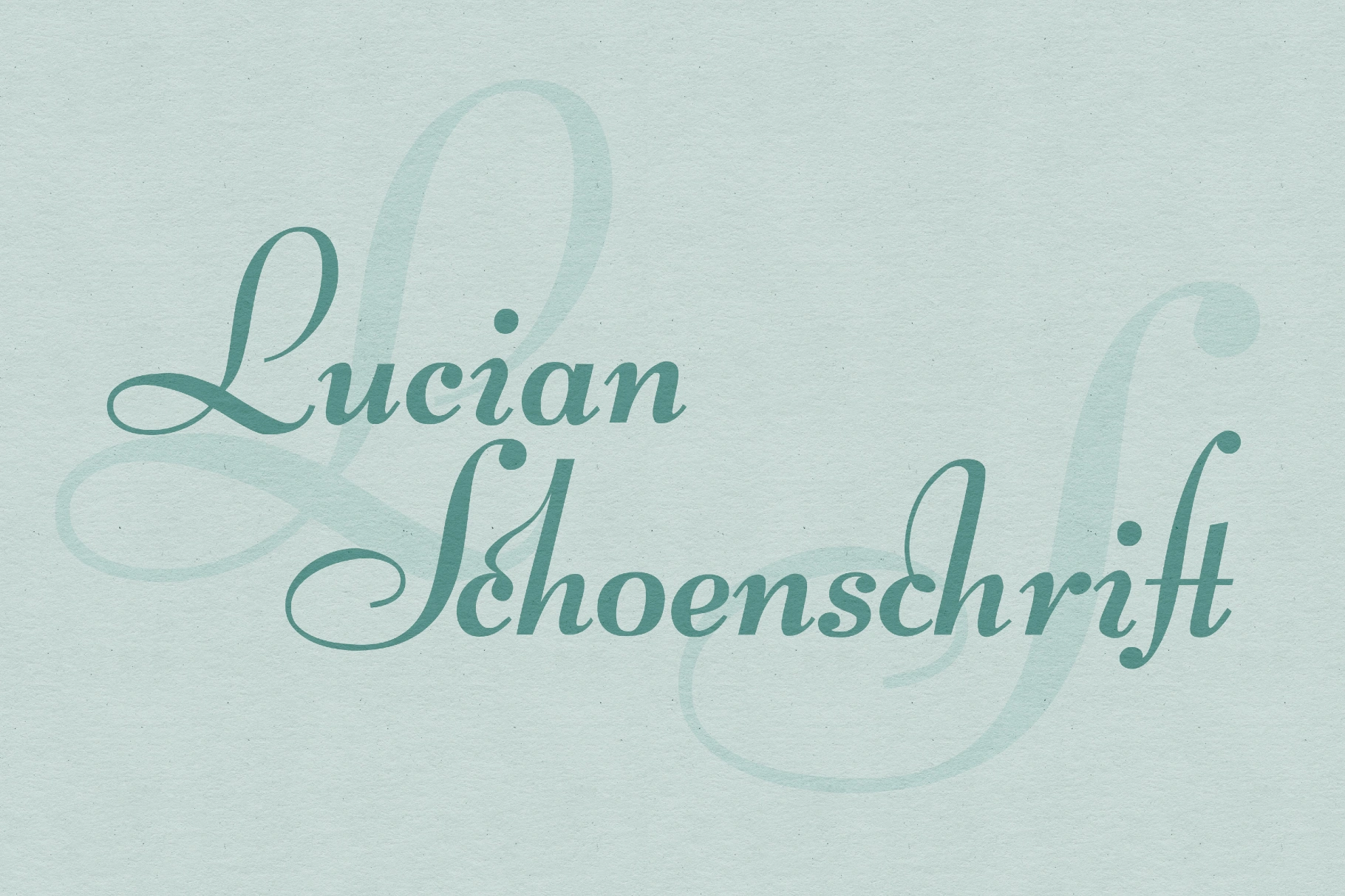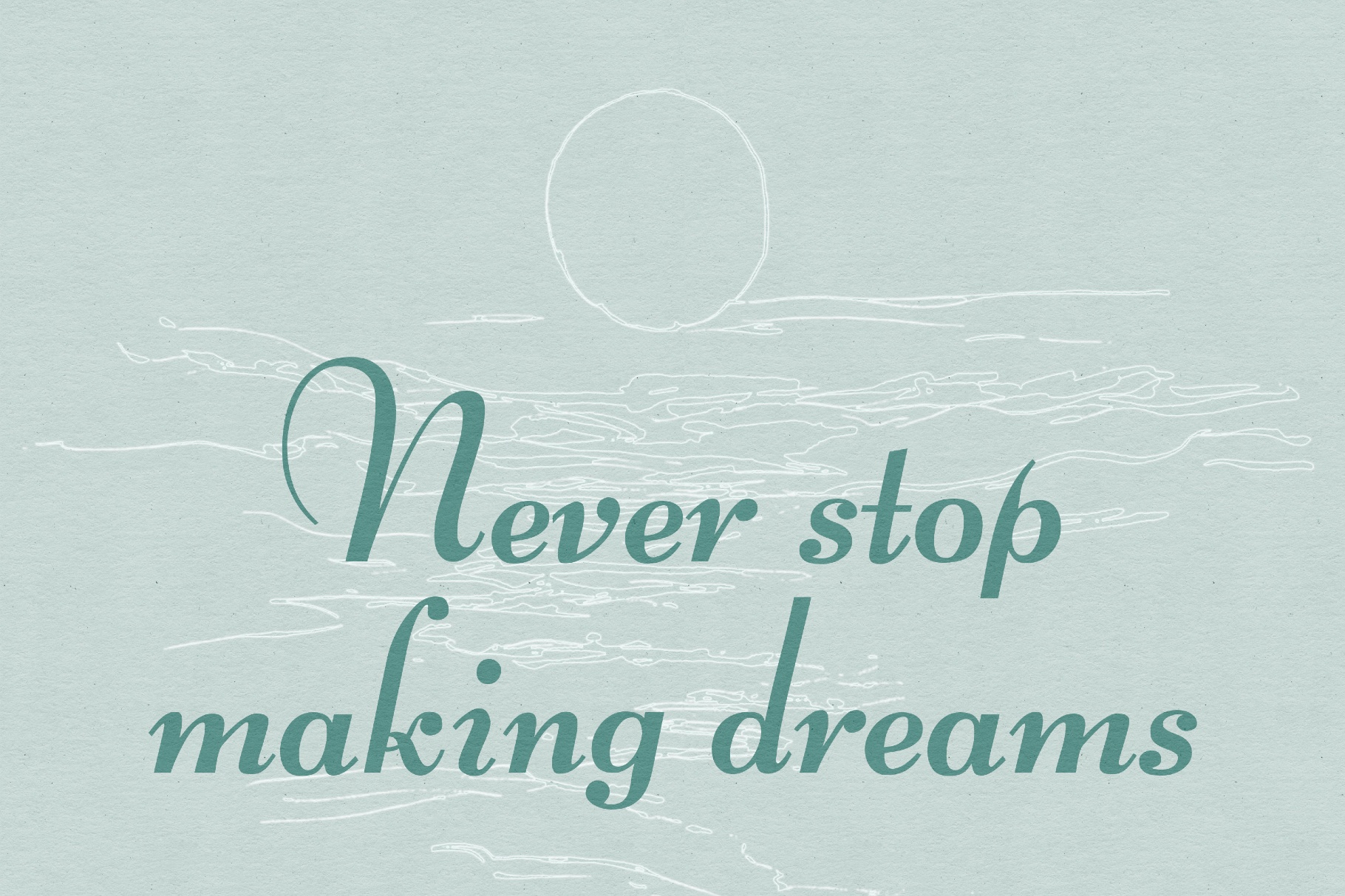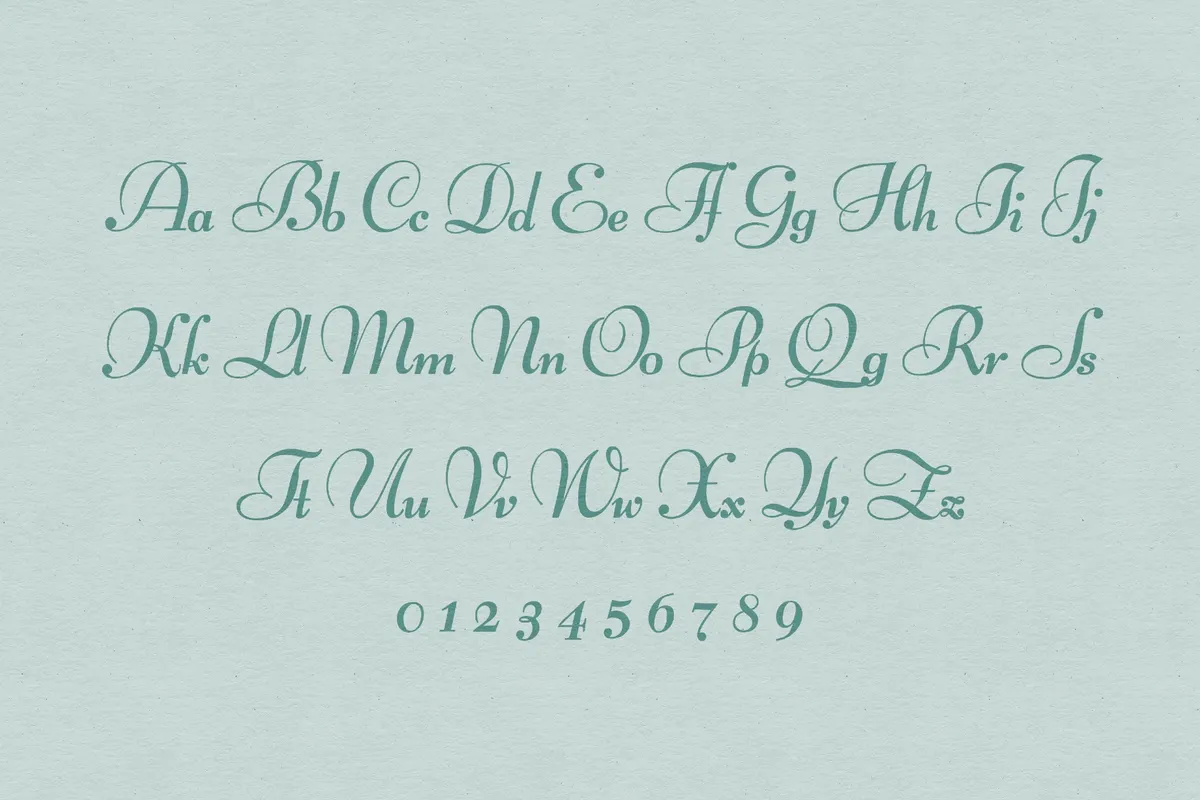
Lucian Schoenschrift Font
Lucian Schoenschrift CAT
Lucian Schoenschrift Font drapes flowing, high-contrast curves in a style reminiscent of ornate Art Nouveau correspondence and rooted in Lucian Bernhard’s 1928 Bernhard Schoenschrift and the Weimar-era poster tradition. With generous loops and a poised slant, it's a font for wedding stationery, formal invitations, wine and spirits labels, literary book covers, boutique branding, certificates, theatre posters, and packaging accents that benefit from a clear handwritten signature.
- Multilingual support across extended Latin scripts.
- Selection of ligatures.